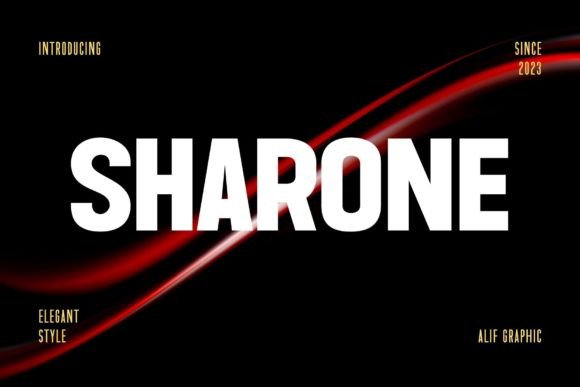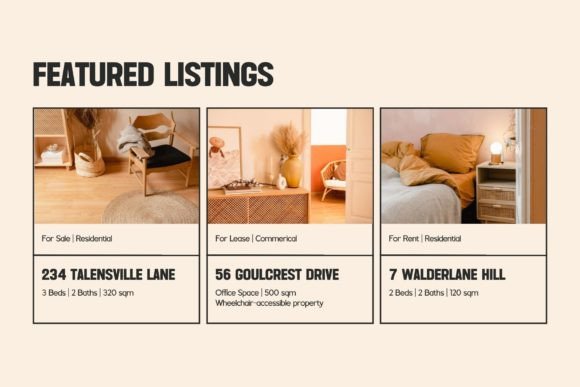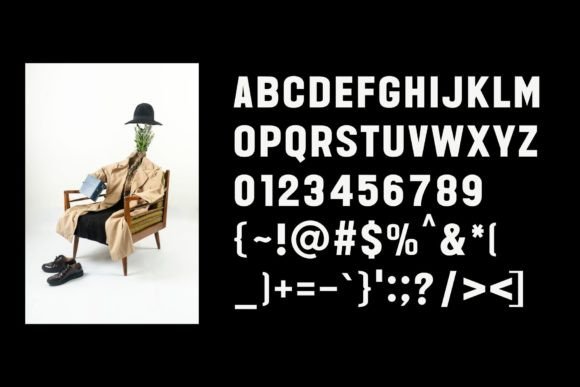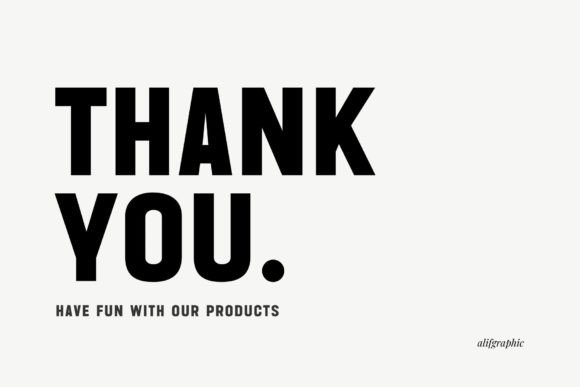
Sharone Font: A Bold Display Font for Impactful Headlines & Branding
About the Sharone Font
Add a touch of class to your work with the Sharone Font, a truly exceptional typeface. Introducing “Sharone” – a simple, bold, all caps display font that commands attention with its clean and powerful design. Perfect for making a bold statement in headlines, posters, or branding, Sharone delivers a straightforward and impactful visual presence. Its simplicity ensures versatility, making it an excellent choice for various design projects where clarity and strength are key. Upgrade your typography with Sharone for a sleek and confident aesthetic.
Sharone Font Usage Examples
Sharone Font Example